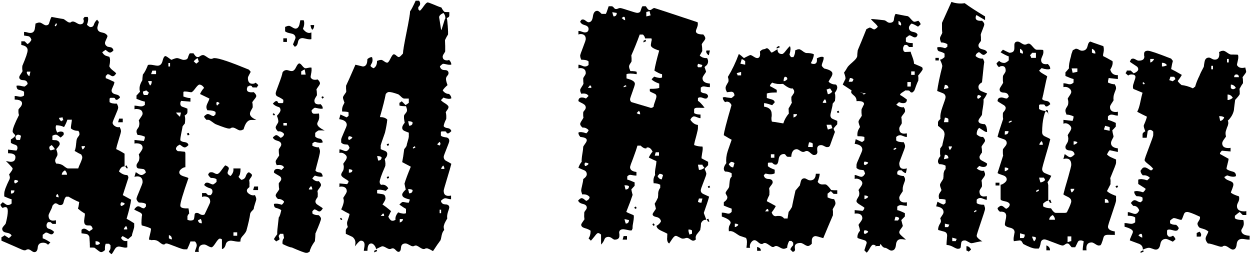
Acid Reflux Font
Say hello to Acid Reflux and get ready to inspire your clients with the result. This distorted font can be perfect for album covers, apps, flyers, and so forth. The letters are almost bold and it goes a little messy in the edges. Try it out now and see how stunning it will appear.